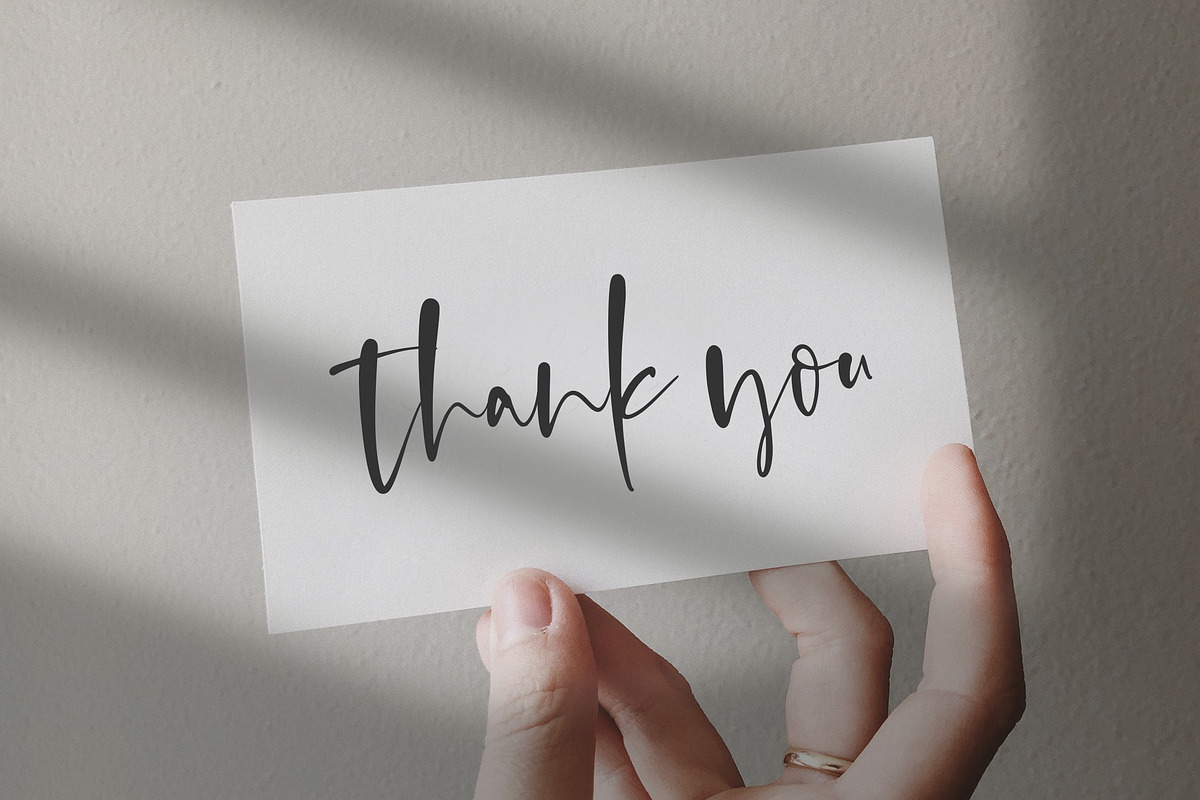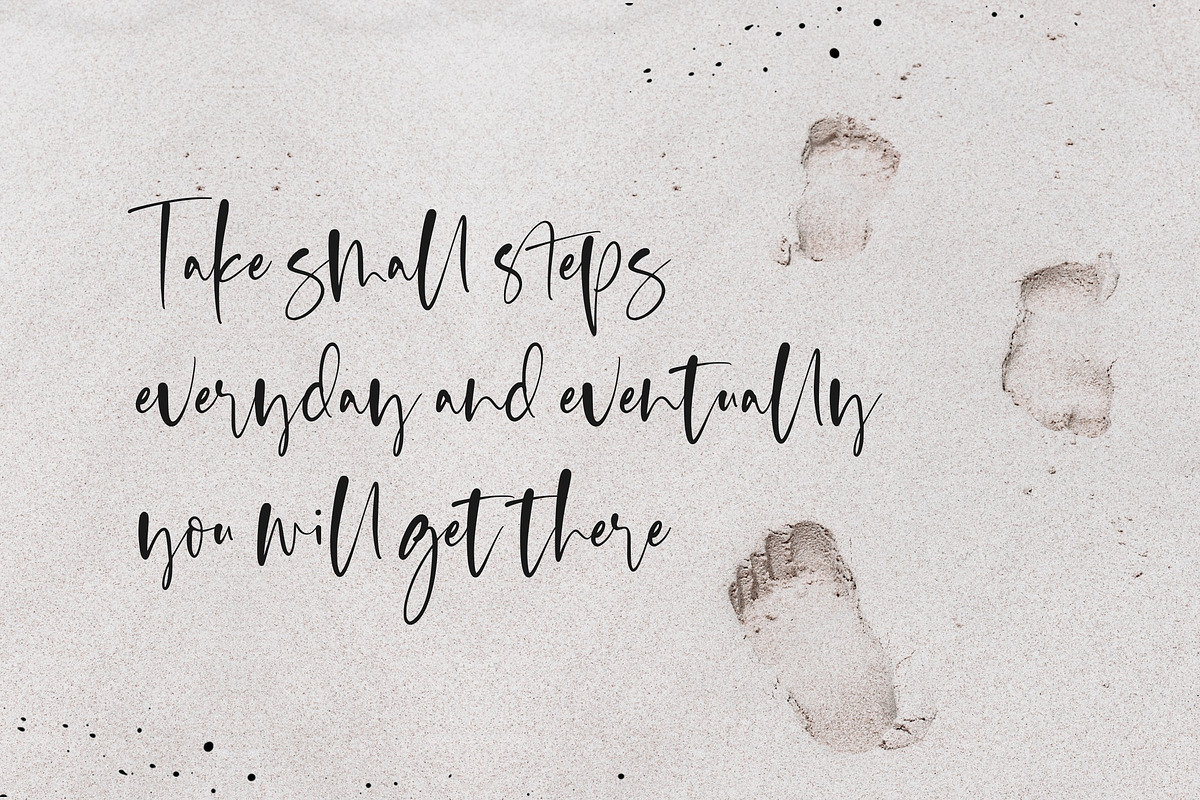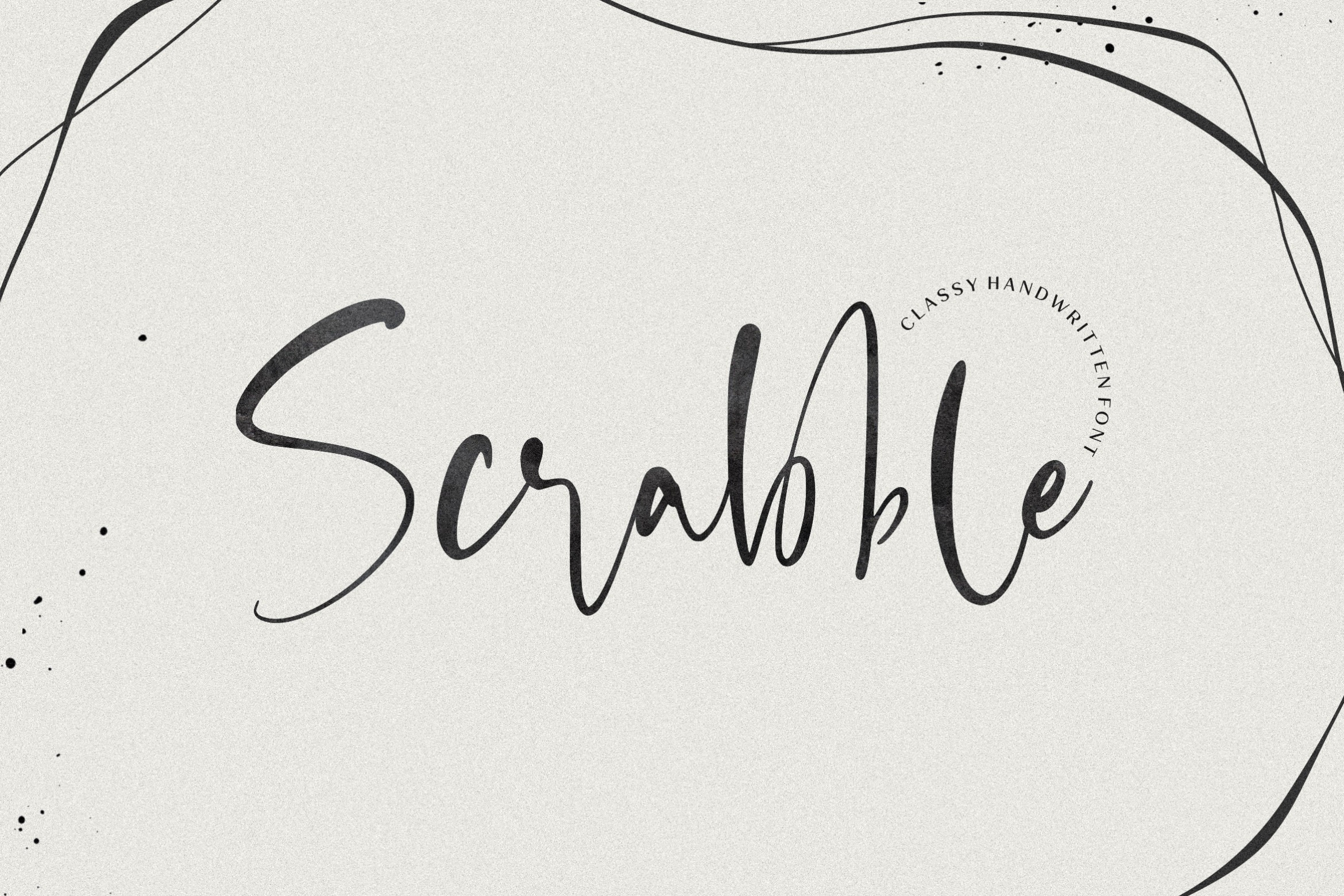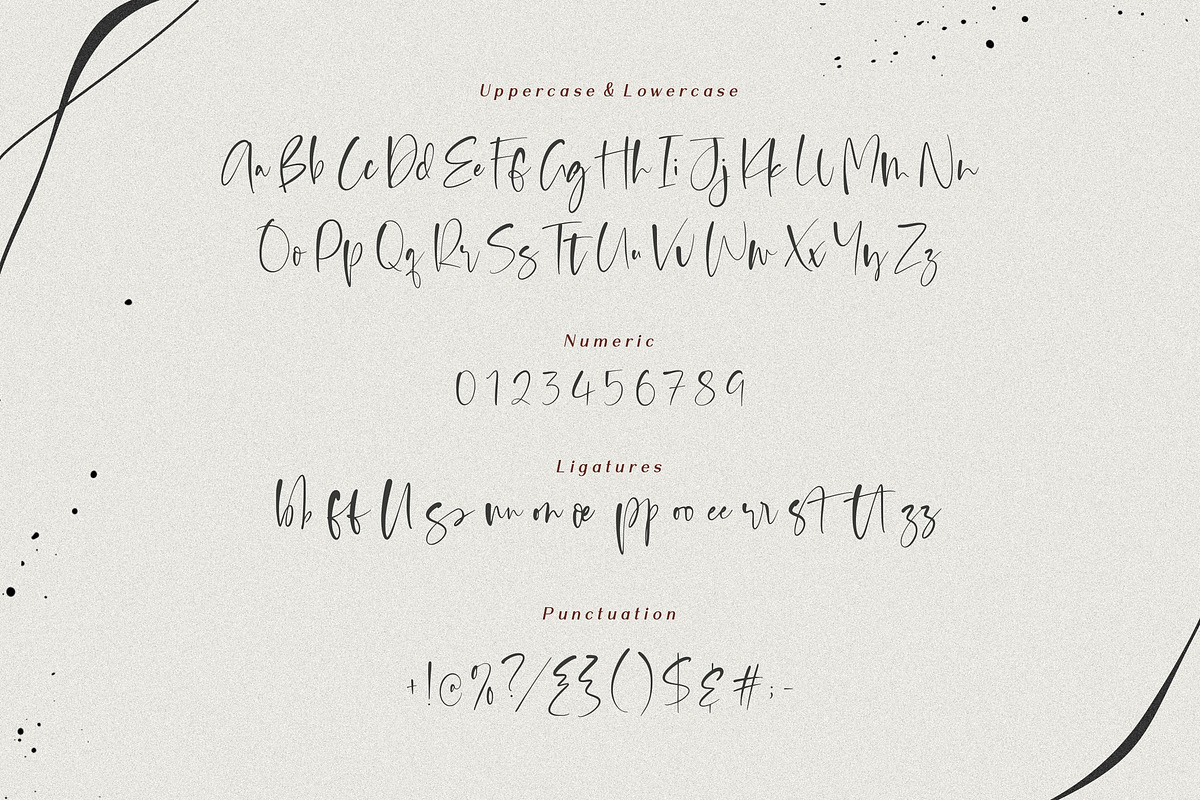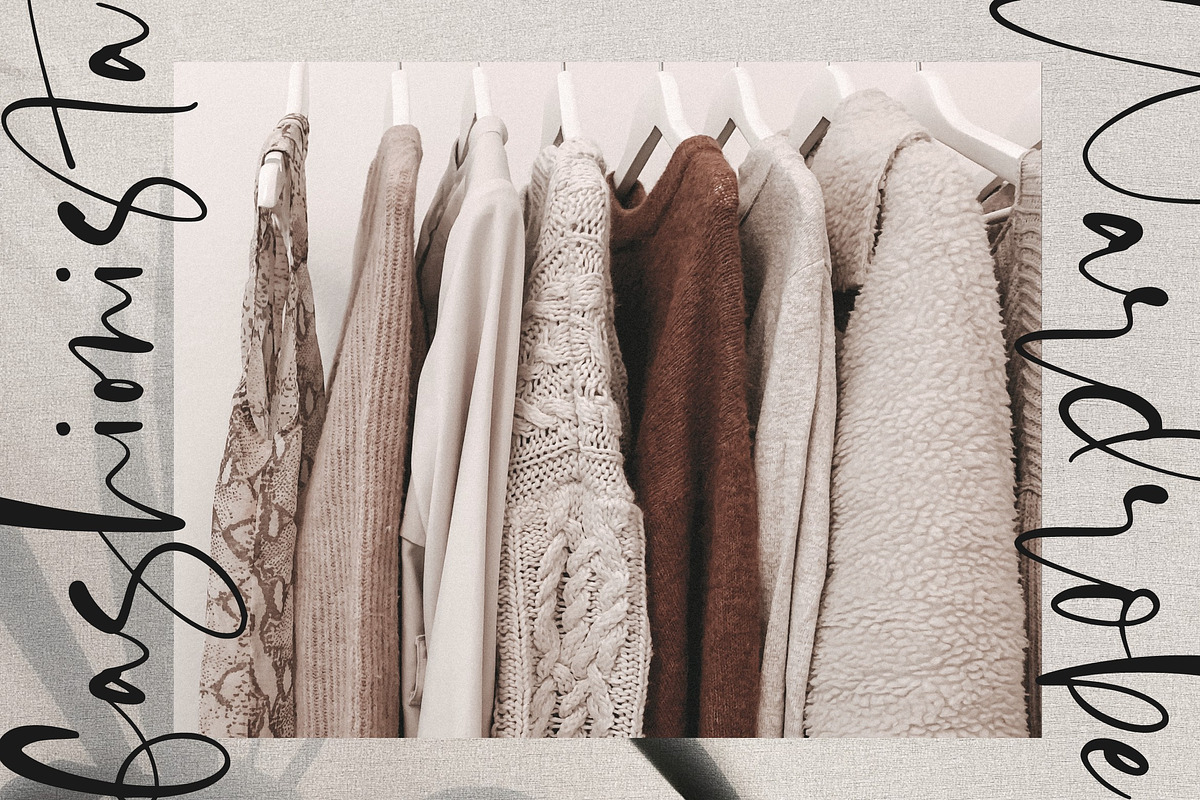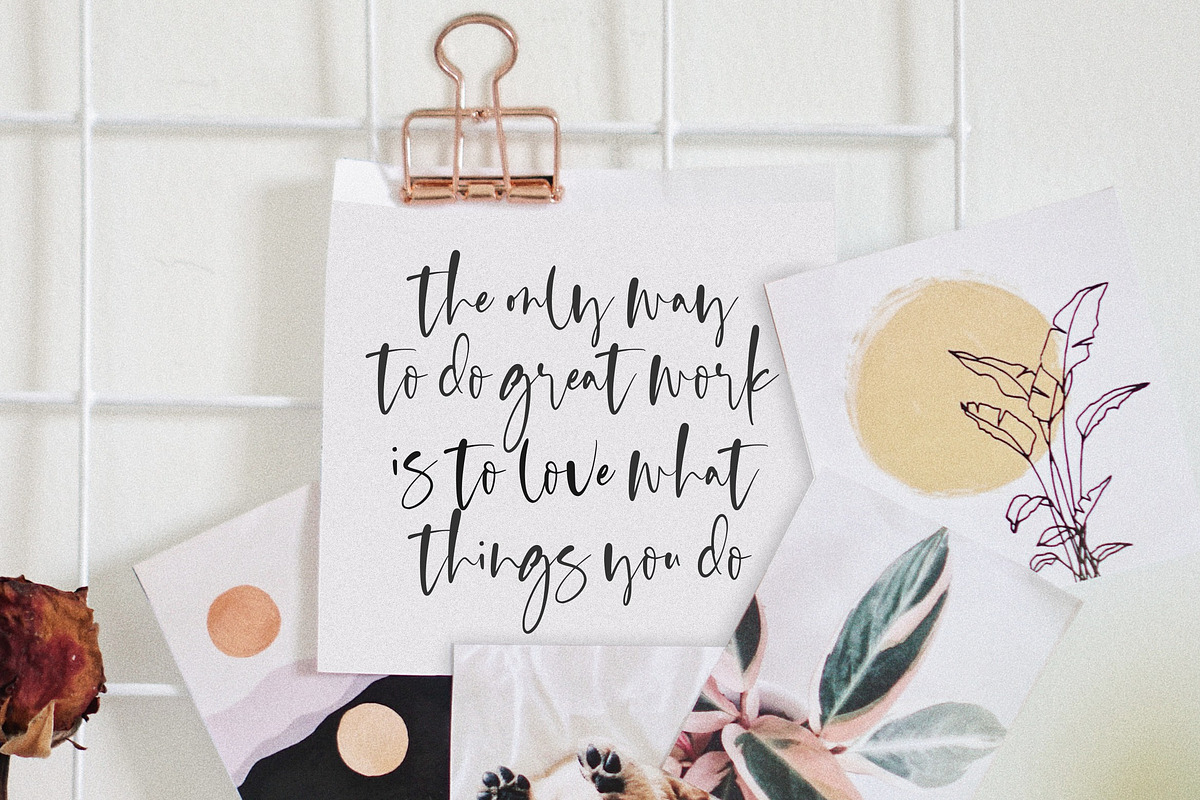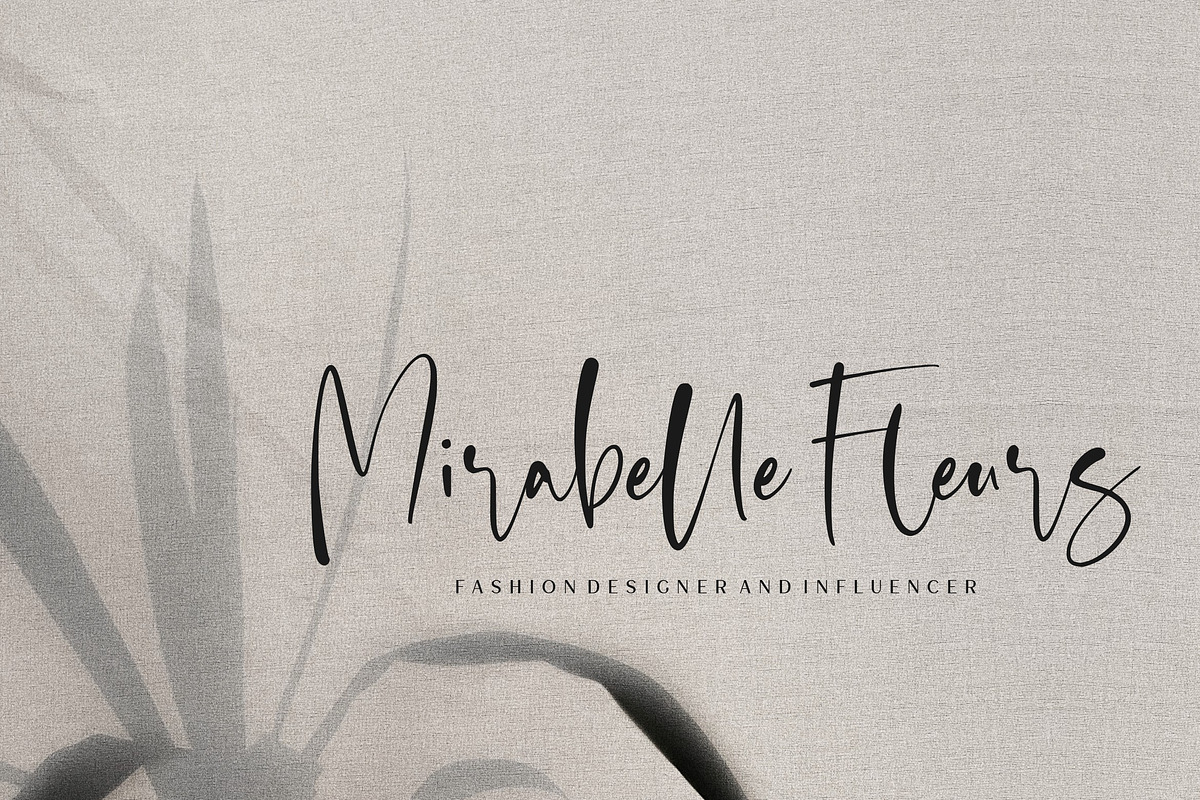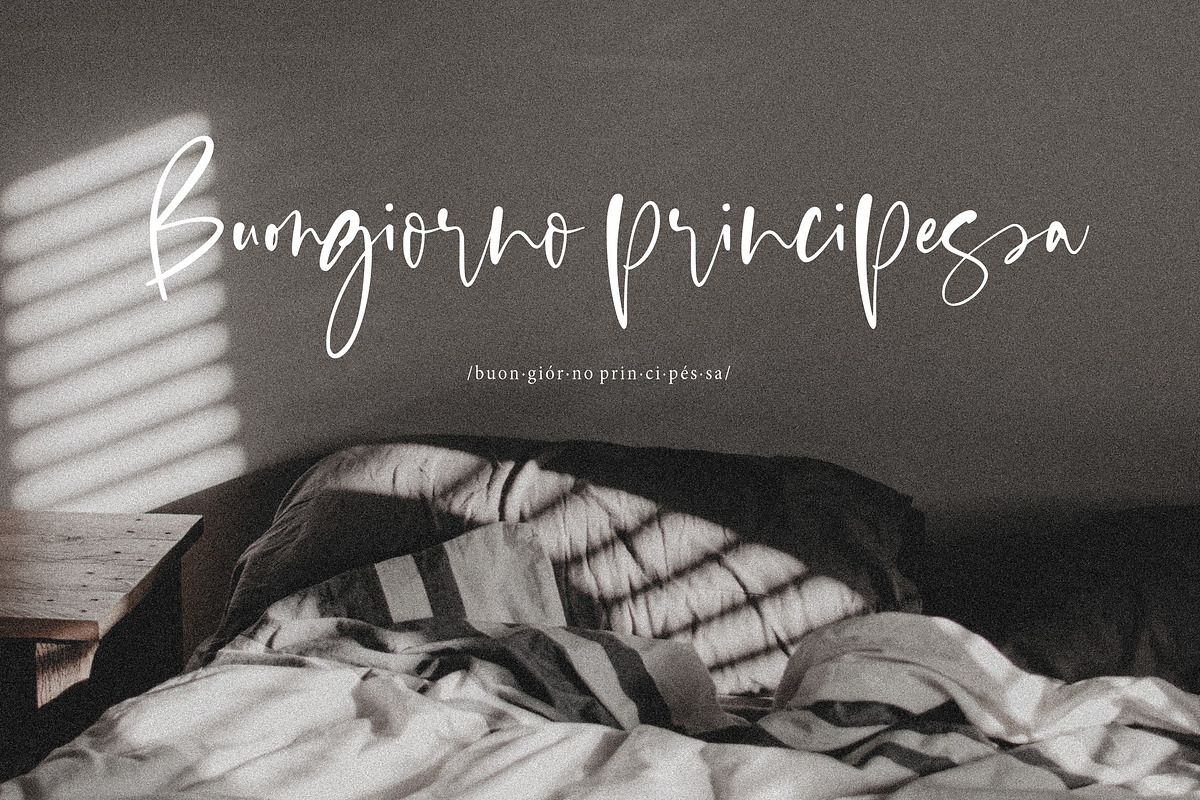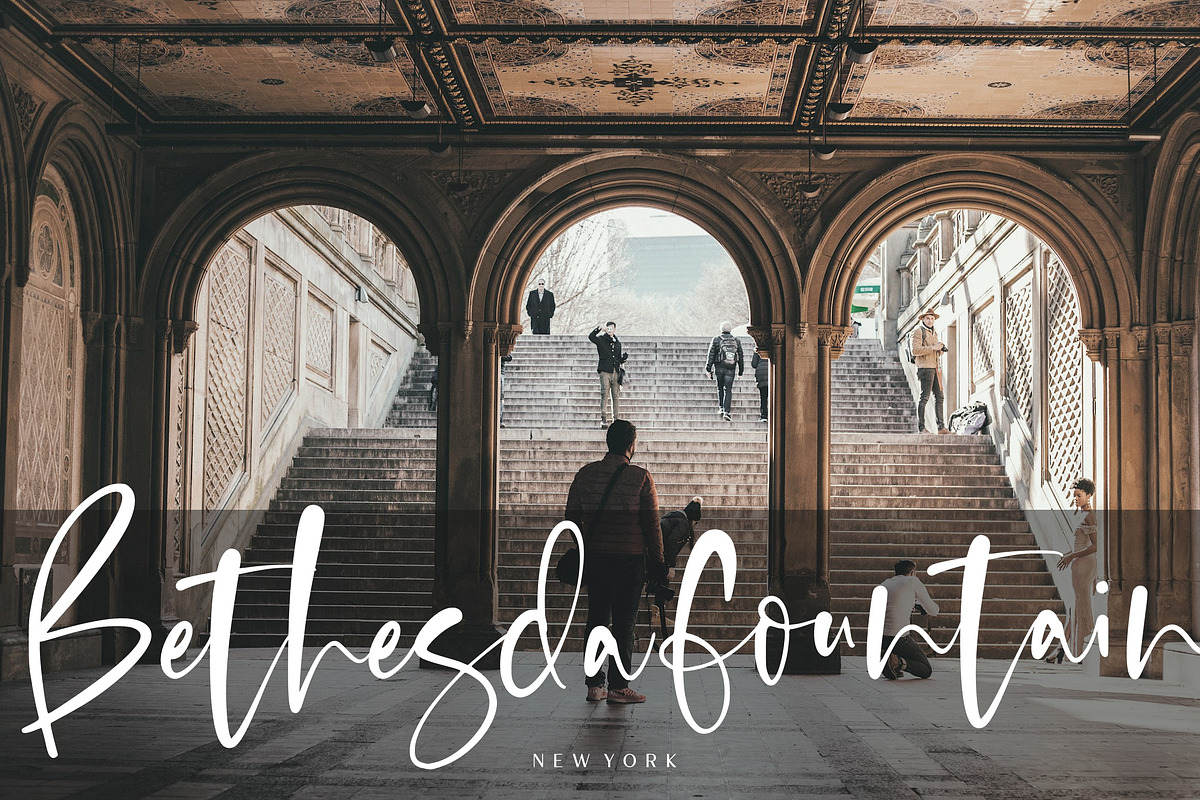
Scrabble Handwritten Font
Introducing Scrabble Font!
Scrabble is warm, eye-catching, and unique handwritten font. This font is suitable for handwriting logos, T-shirts, merchandise, quotes, social media posts, advertising, and a lot more!
Scrabble comes with an accent language and ligatures.